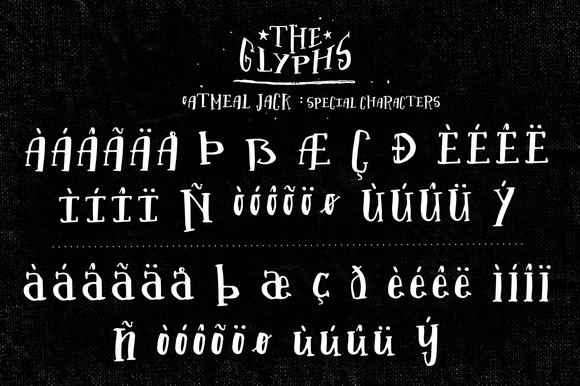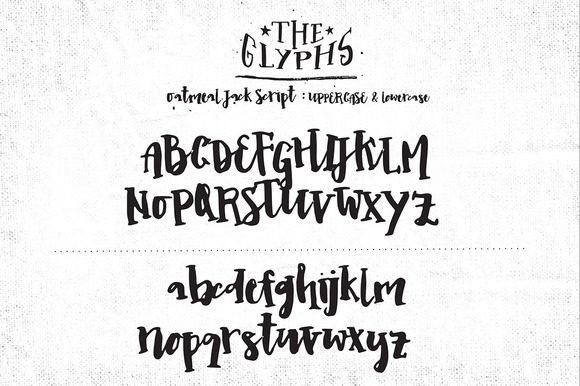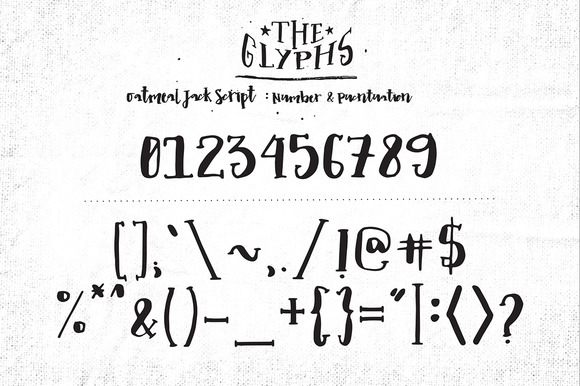
Oatmeal Jack Font
About the Oatmeal Jack Font
Unleash your creativity with Oatmeal Jack Font, a versatile font perfect for a wide range of applications. Oatmeal Jack is a stunning hand lettered font duo that was created entirely using a brush and marker.
The duo consists out of:
Oatmeal Jack Serif
Oatmeal Jack Script
The 2 styles are very complimentary and you can easily mix and match them. This allows you to alternate between personal and more serious designs, however, always with a fun twist.
The Oatmeal Jack Serif & Script fonts come with complete accented glyphs for international languages. It also features ligatures.
Oatmeal Jack’s hand-lettered charm makes it ideal for headlines, short paragraphs, logos, and packaging design where its playful yet sophisticated personality shines. It’s particularly well-suited to brands aiming for a handcrafted, approachable feel, such as artisan food companies, boutiques, or children’s products. Avoid using it for large blocks of body text or UI elements; its irregular nature hinders readability in extended passages.
The Oatmeal Jack Serif pairs beautifully with clean sans-serif fonts like Montserrat or Lato for a balanced contrast. For a more whimsical feel, consider pairing the script with a geometric sans-serif such as Futura or a playful, rounded sans-serif like Bebas Neue. Using both Serif and Script together, as intended, creates a dynamic and engaging visual hierarchy.
The overall personality of Oatmeal Jack is friendly, approachable, and slightly quirky, conveying a sense of authenticity and handmade quality. Its versatility allows for both playful and sophisticated applications, depending on the chosen pairing and design context.